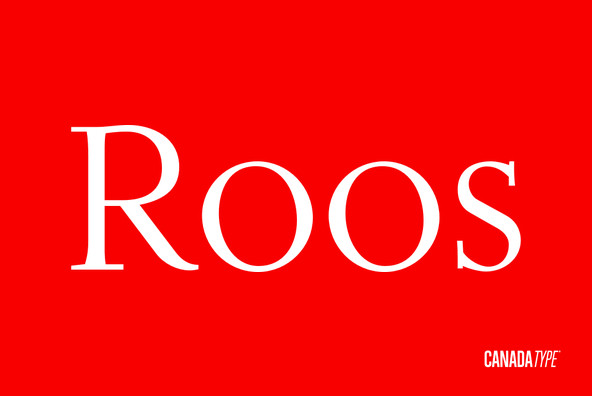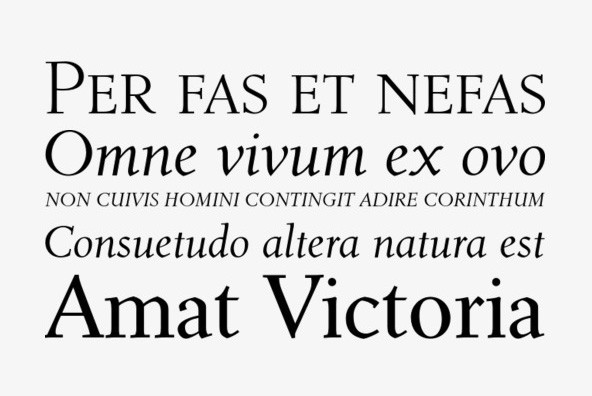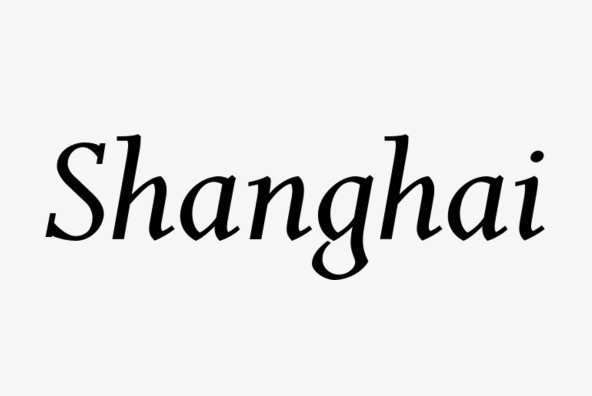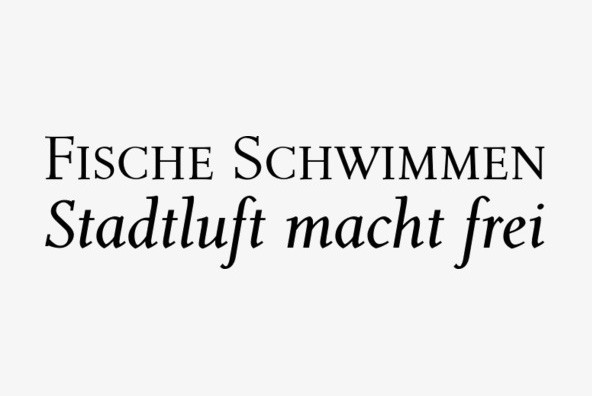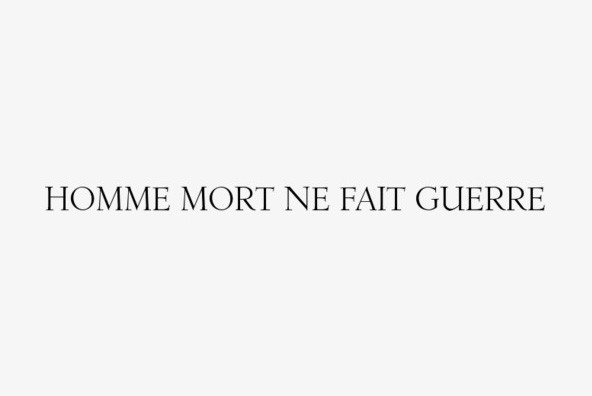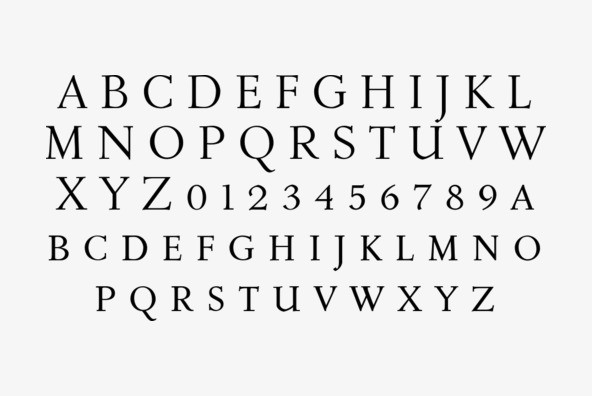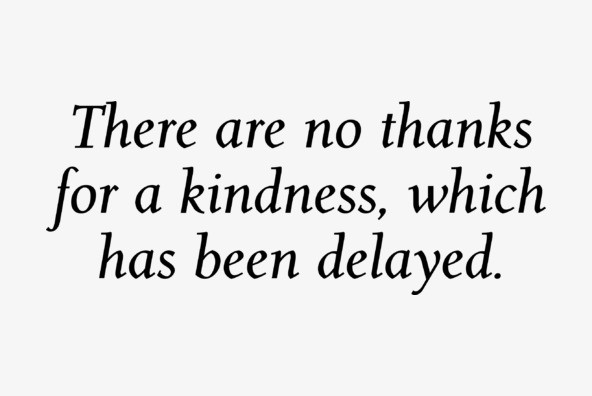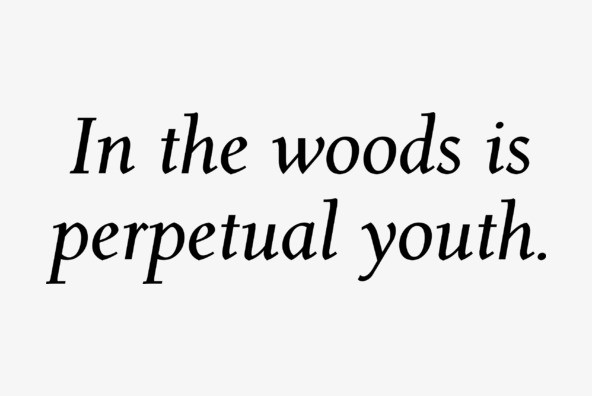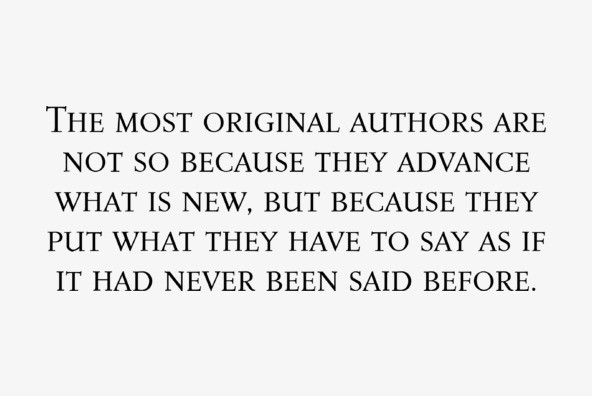
Foundry: Canada Type
The Roos family is a digitization and expansion of the last typeface designed by Sjoerd Hendrik De Roos, called De Roos Romein (and Cursief). It was designed and produced during the years of the second World War, and unveiled in the summer of 1947 to celebrate De Roos's 70th birthday. In 1948, the first fonts produced were used for a special edition of the Dutch Constitution on which Juliana took the oath during her inauguration as the Queen of the Netherlands. To this day this typeface is widely regarded as De Roos's best design, with one of the most beautiful italics ever drawn. In contrast with all his previous roman faces, which were based on the Jenson model, De Roos's last type recalls the letter forms of the Renaissance, specifically those of Claude Garamont from around 1530, but with a much refined and elegant treatment, with stems sloping towards the ascending, slightly cupped serifs, a tall and distinguished lowercase, and an economic width that really shines in the spectacular italic, which harmonizes extremely well with its roman partner. The Roos family contains romans, italics and small caps in regular, semibold and display weights, as well as a magnificent set of initial caps. All the fonts contain extended language support, surpassing the usual Western Latin codepages to include characters for Central and Eastern European languages, as well as Baltic, Celtic/Welsh, Esperanto, Maltese, and Turkish.